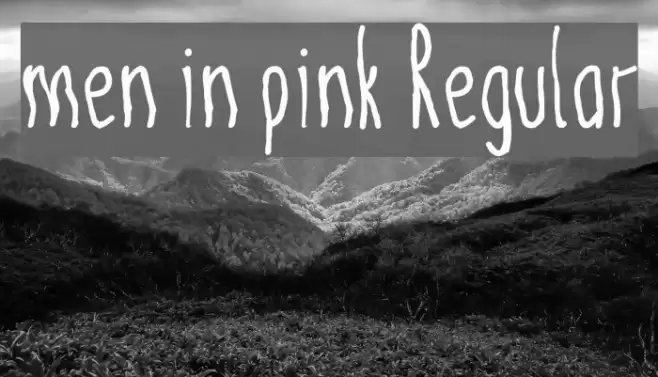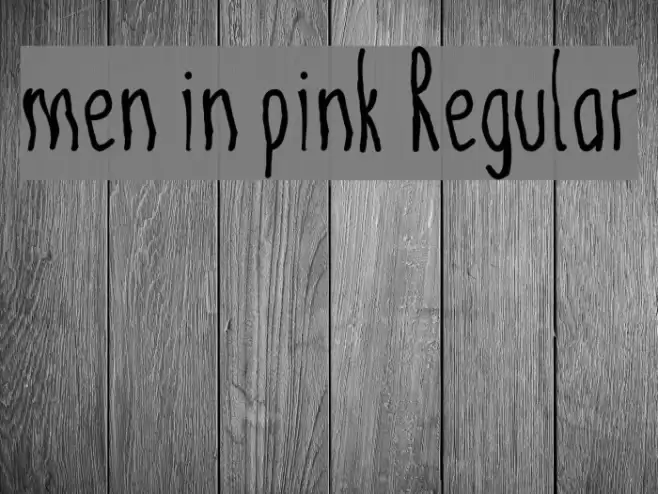
men in pink Regular Font
This font features a playful and hand-drawn style, characterized by its irregular and slightly wavy lines. The letters have a casual, informal appearance, with varying stroke widths that give it a dynamic and lively feel. The uppercase letters are tall and narrow, while the lowercase letters maintain a consistent height, adding to the font's quirky charm. Numbers and special characters follow the same whimsical design, making it suitable for creative and artistic projects. The overall look is reminiscent of handwritten text, offering a personal touch to any design.
A playful, hand-drawn font with irregular, wavy lines and a casual style from Uncategorized fonts.
- Proposed Projects: Ideal for greeting cards, children's books, creative posters, and DIY projects.
- Use Case: Headlines, Logos, Creative projects